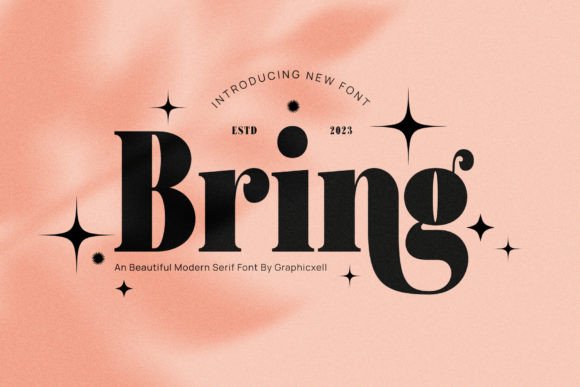
Introducing Bring Font, the epitome of elegance and sophistication in the world of typography. Crafted by the talented team at Graphicxell, this serif font is specifically designed to enhance the beauty of the letter G.
With Bring Font, your branding projects will reach new heights of creativity and professionalism. Its unique and timeless design effortlessly combines a classic serif typeface with a touch of modernity, making it the perfect choice for logo designs that leave a lasting impression.
But the versatility of Bring Font doesn't end there. It seamlessly adapts to various design needs, making it an essential tool for any creative endeavor. Whether you're working on wedding designs, social media posts, advertisements, or product packaging, this font will elevate your project to a whole new level of sophistication.
One of the standout features of Bring Font is its exceptional readability. Each character is meticulously crafted to ensure clear and legible text, guaranteeing that your message is effortlessly conveyed to your audience.
Imagine your photography business adorned with a stunning watermark created with Bring Font, adding a touch of elegance to your captivating images. Or envision your invitations and stationery exuding a timeless charm that reflects the essence of your special occasion.
Bring Font is not just a font; it's a powerful tool that brings your vision to life. Its captivating presence and versatility make it an indispensable asset for designers, entrepreneurs, and creatives alike.